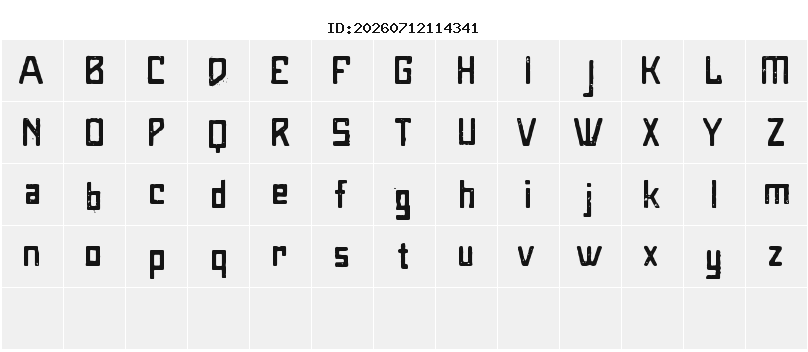
MaiersNr8 Preview
• Font Name: MaiersNr8
• Font ID: TransType 2 PC;MaiersNr8-Halbfett;001.000;10/18/05 00:17:23
• Full Font Name: MaiersNr8-Halbfett
• PostScript Name: MaiersNr8-Halbfett
About MaiersNr8.ttf
MaiersNr8.ttf is a modern, elegant sans-serif font designed for ultimate readability and visual harmony. Perfect for branding, headlines, web design, and print materials.